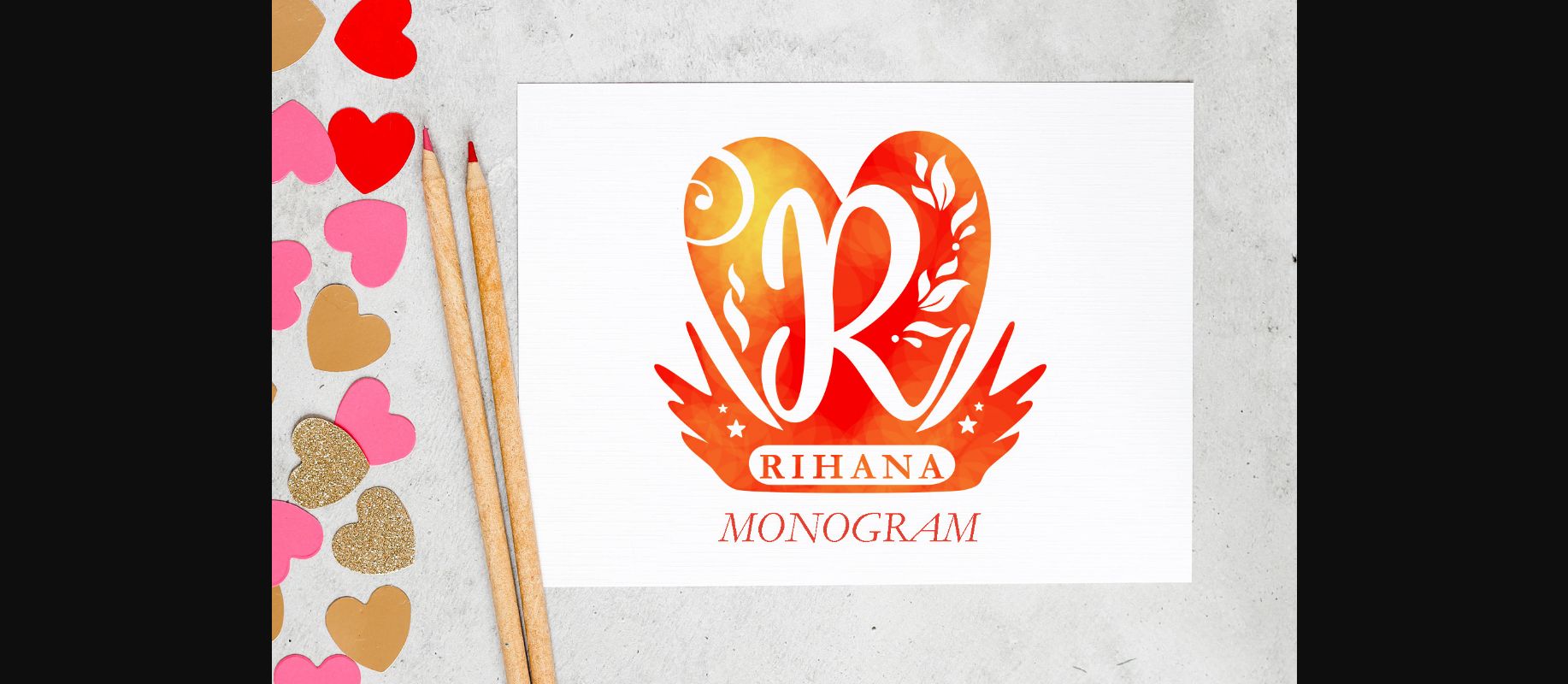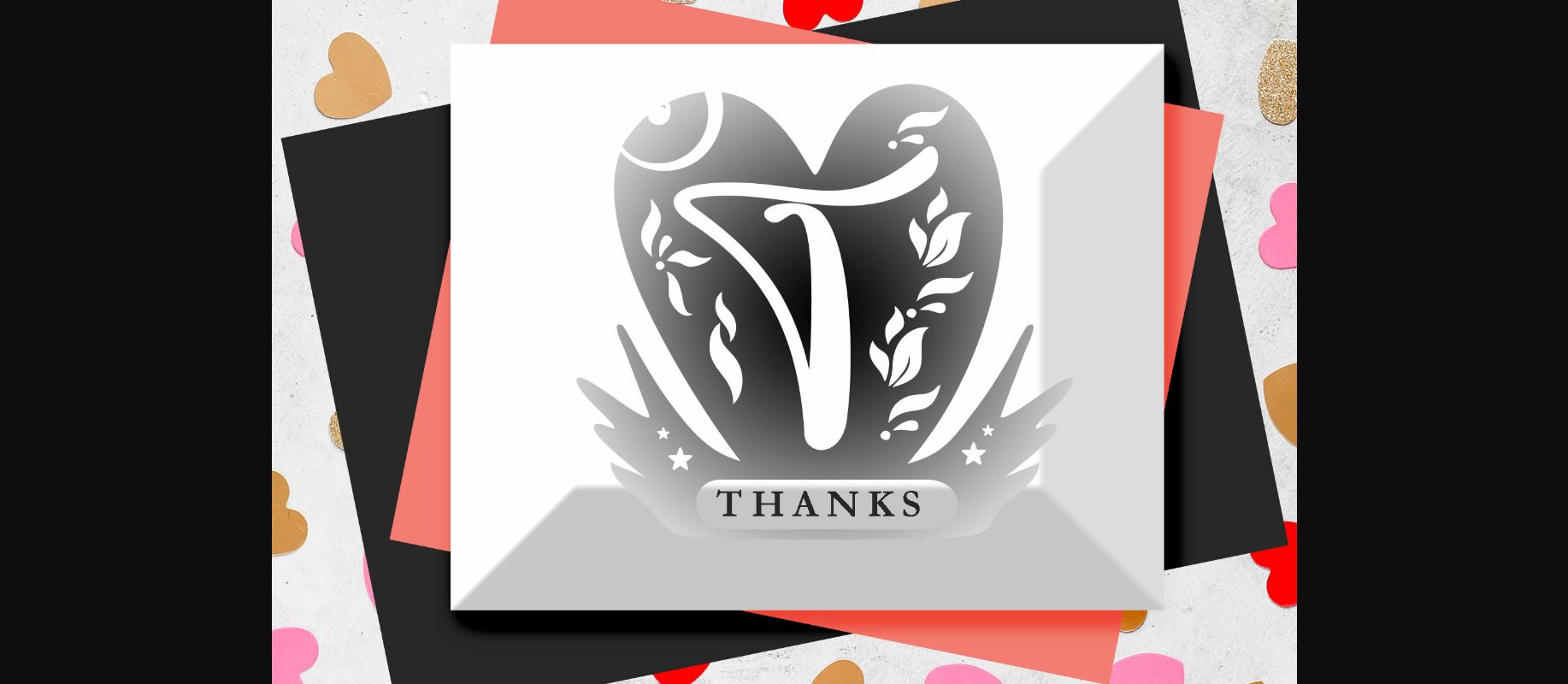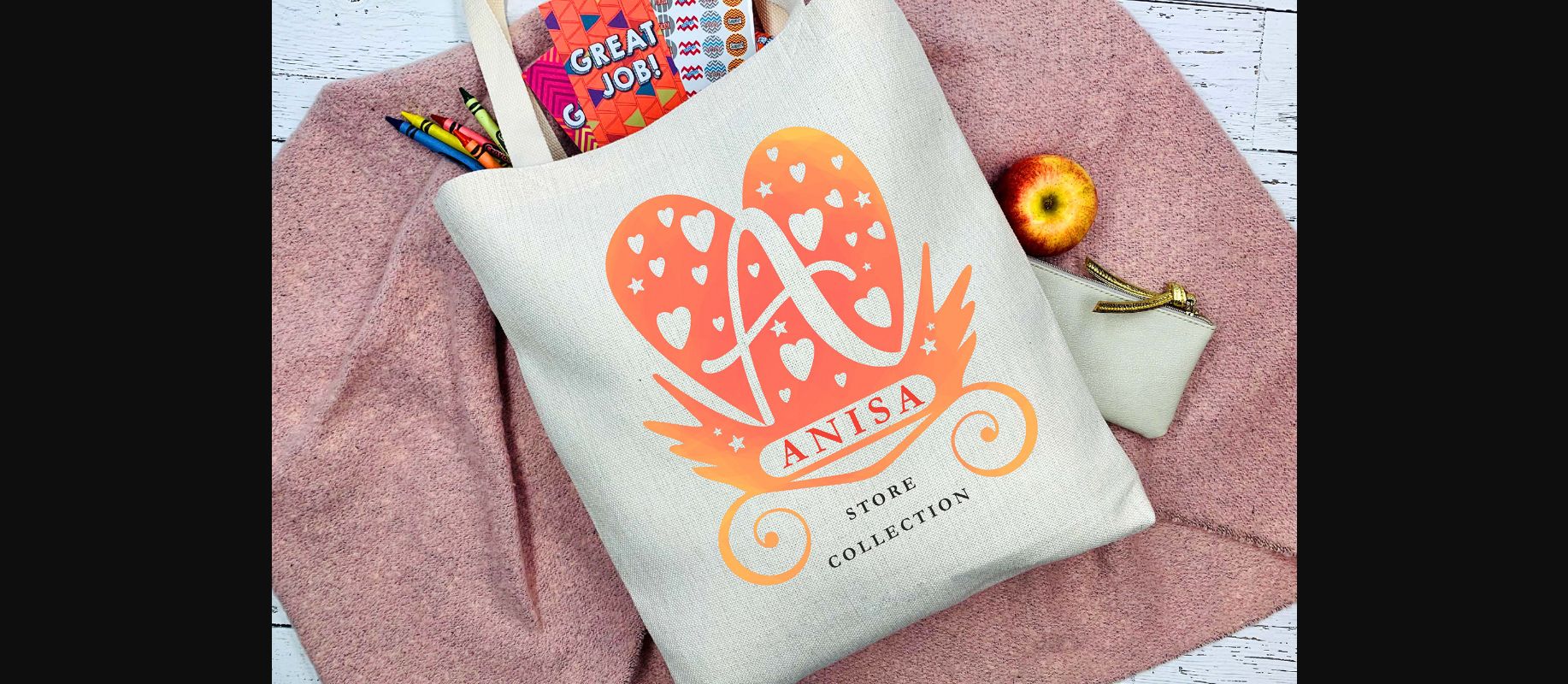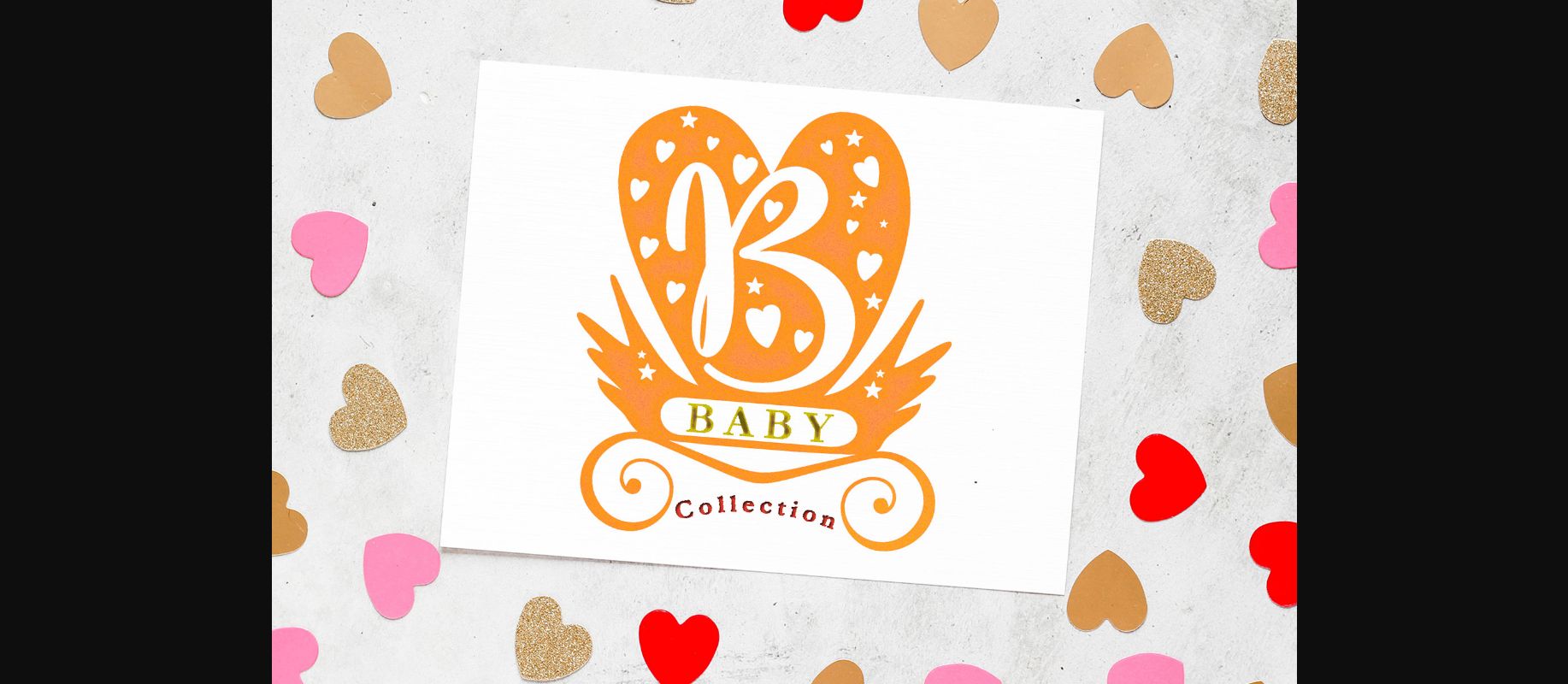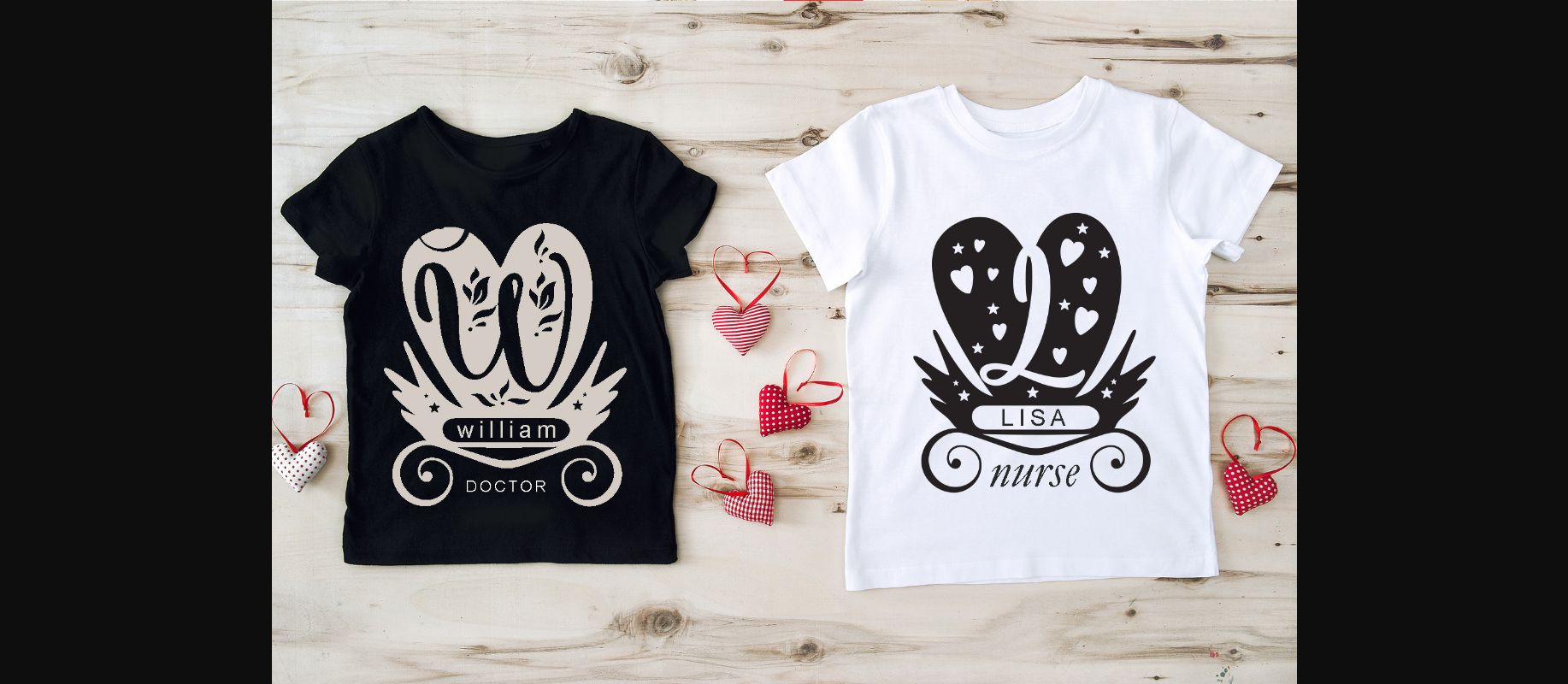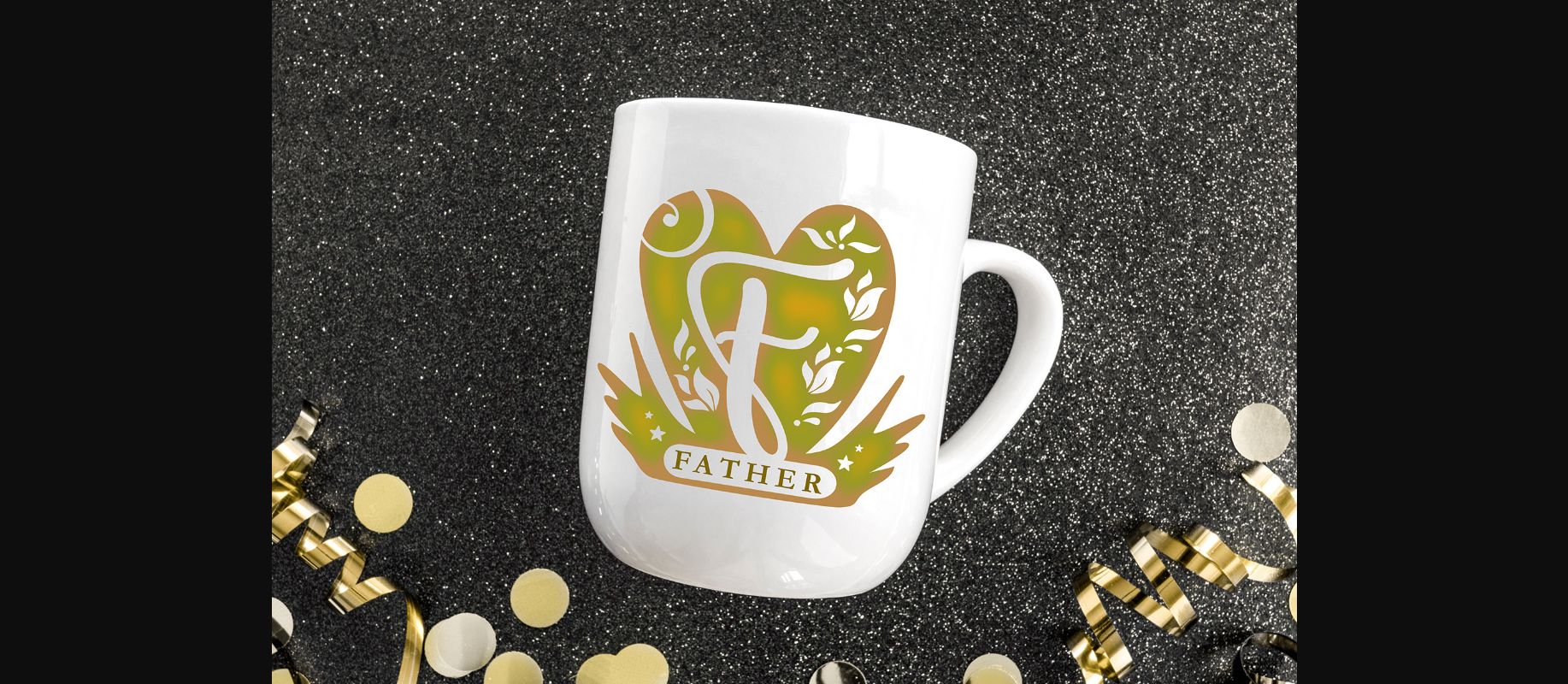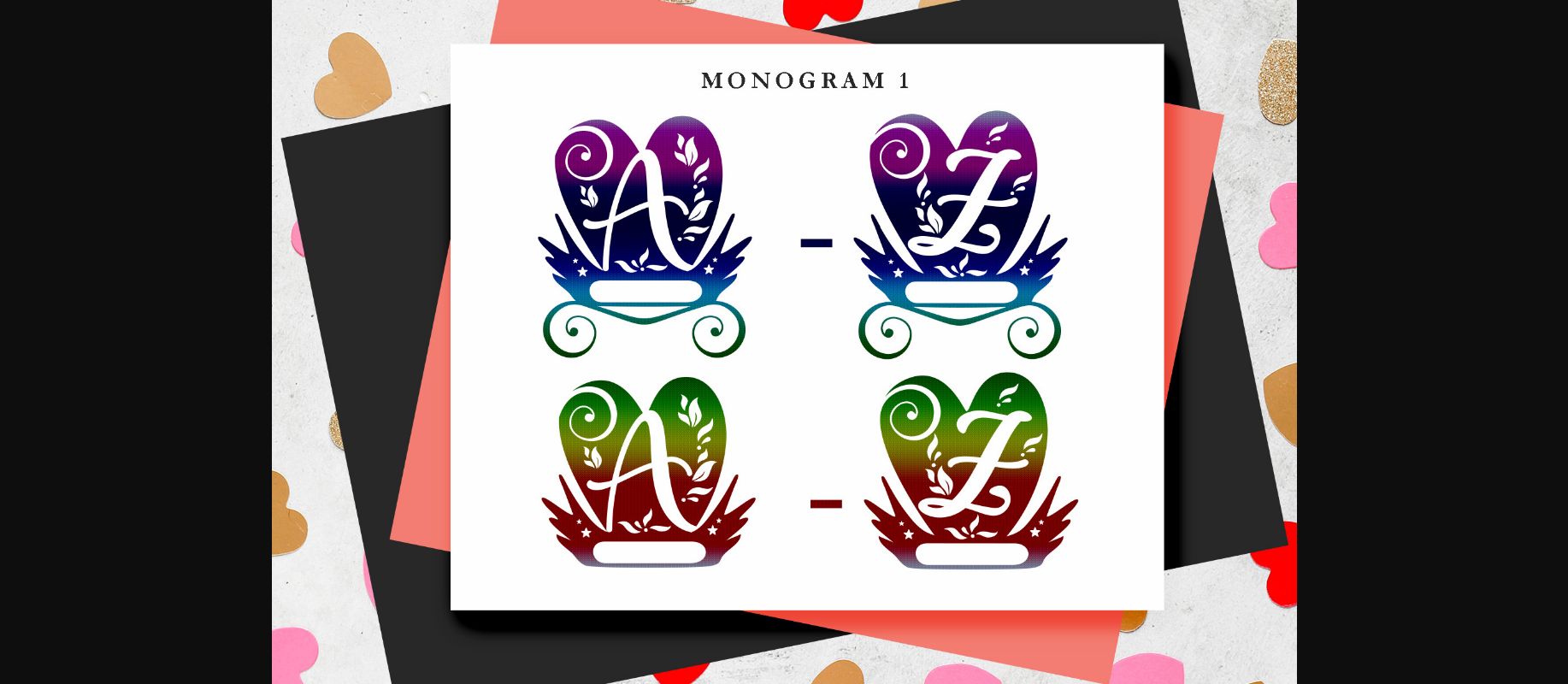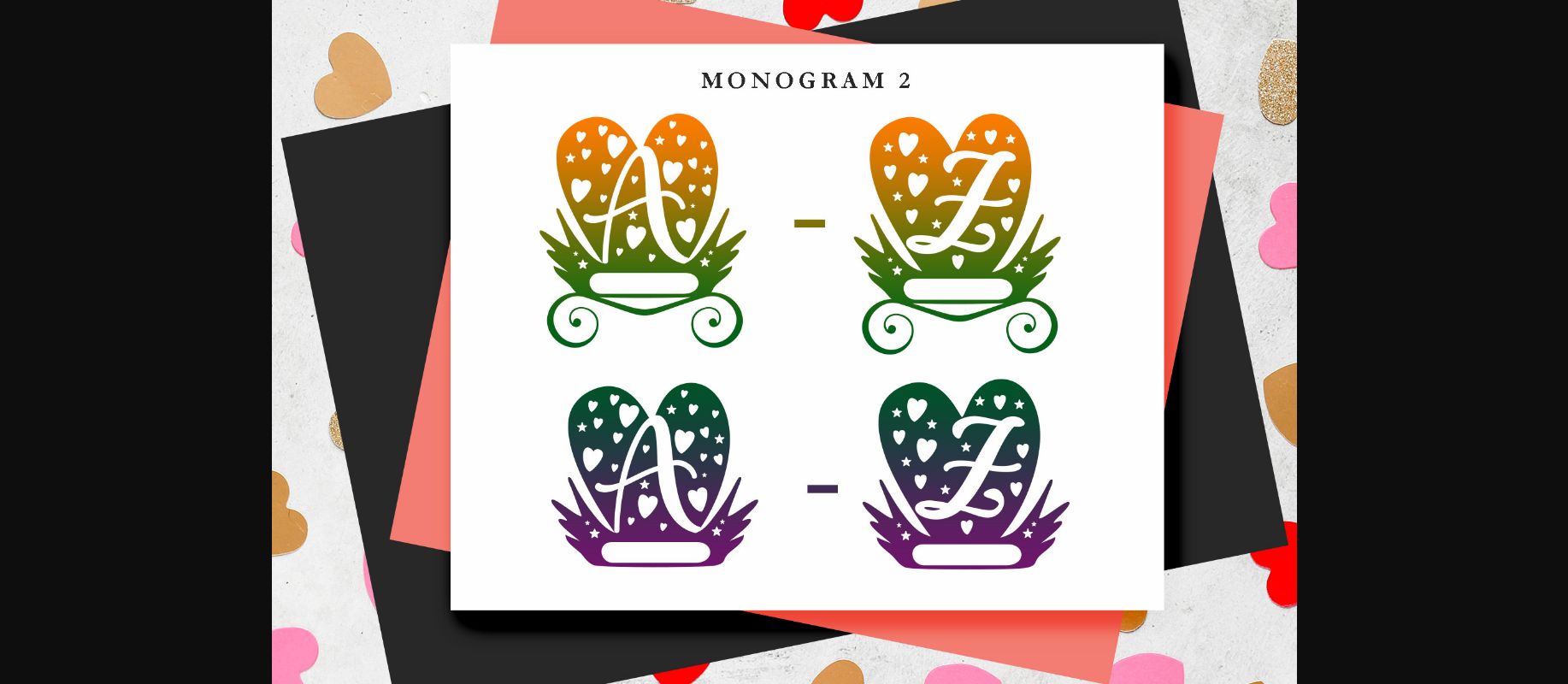
About Rihana Monogram Font
Rihana Monogram is a cute and incredibly romantic decorative font. Whatever the topic, this font will be a wonderful asset to your font library, as it has the potential to enhance any creation.